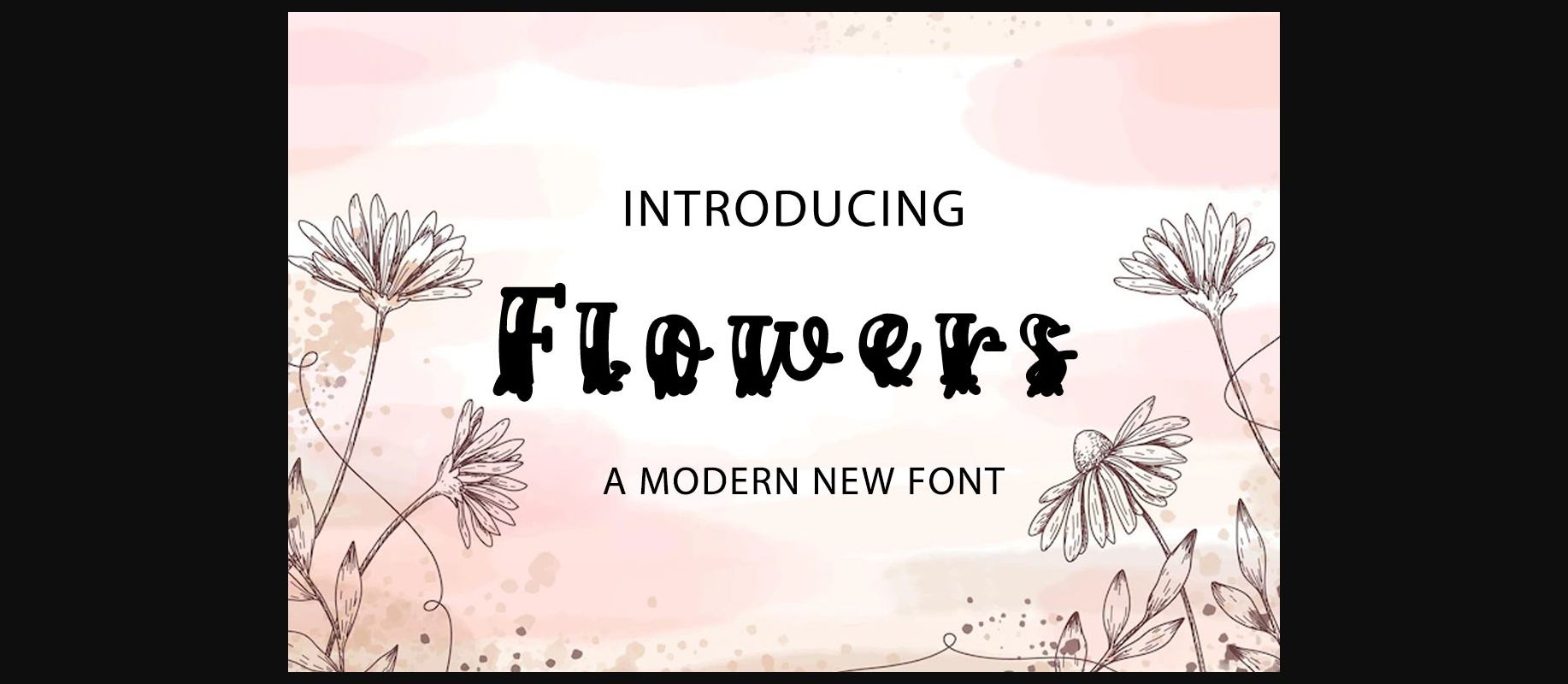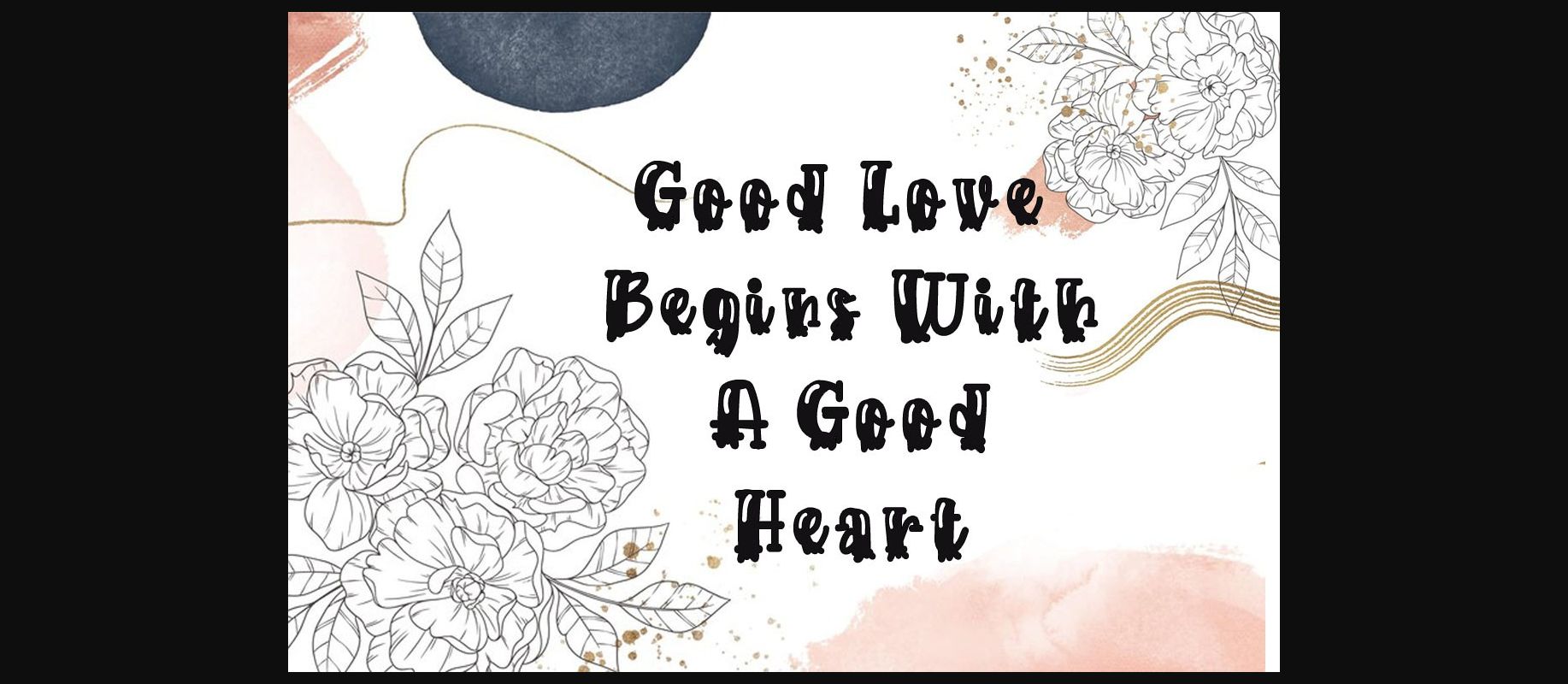
About Flowers Font
Flowers will add a beautiful touch of nature to your designs. Flowers is great for flower shops, product design, illustrations, decorations, social media posts, and any nature-inspired designs!